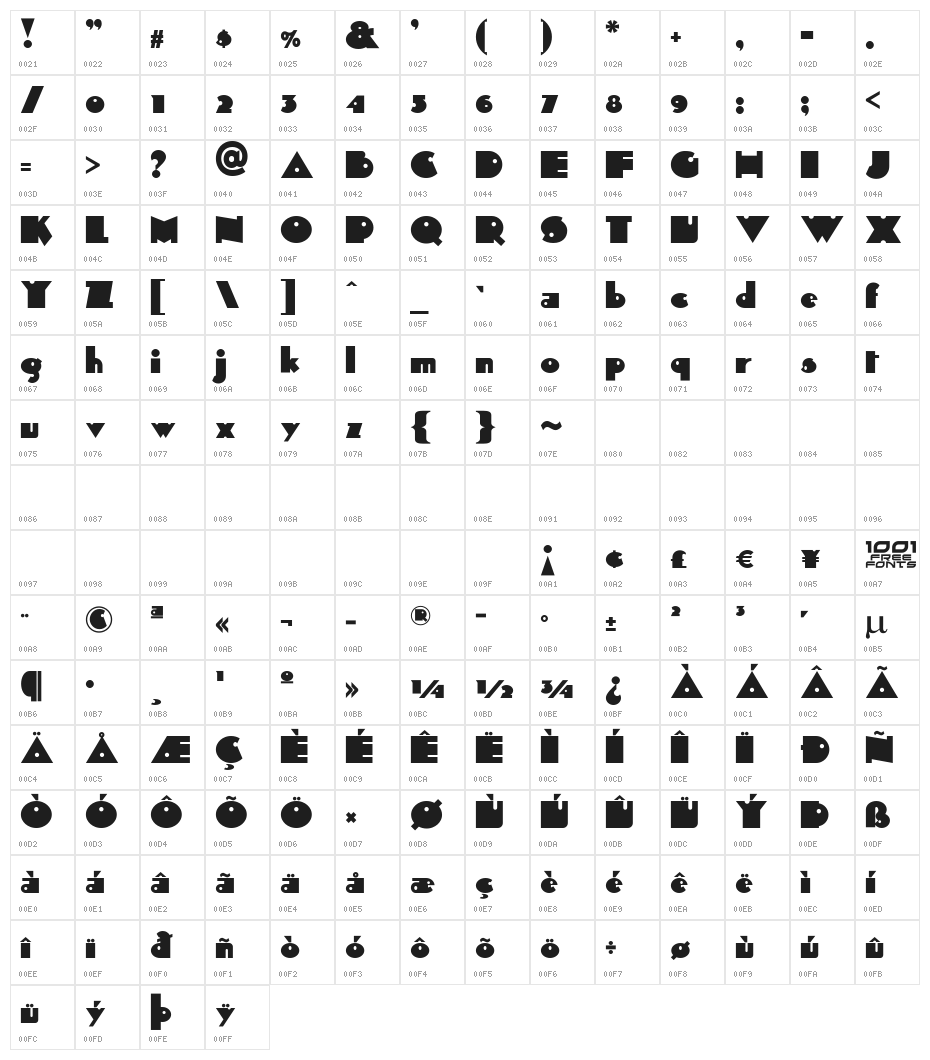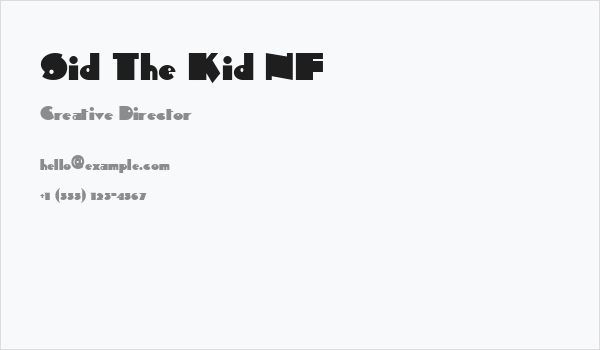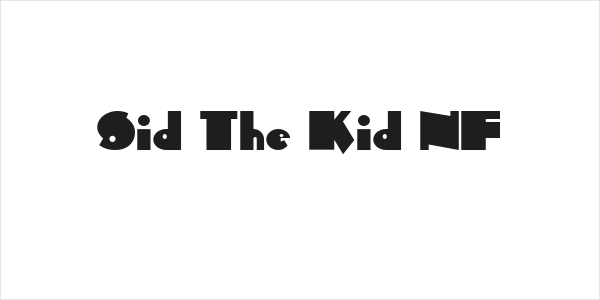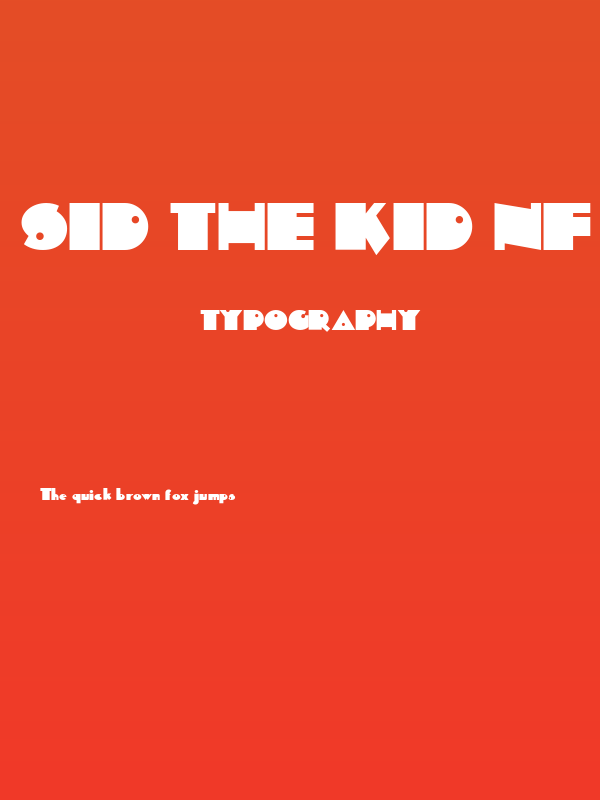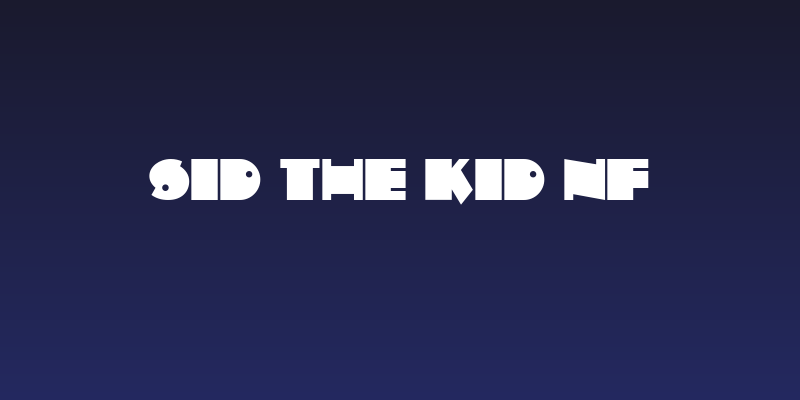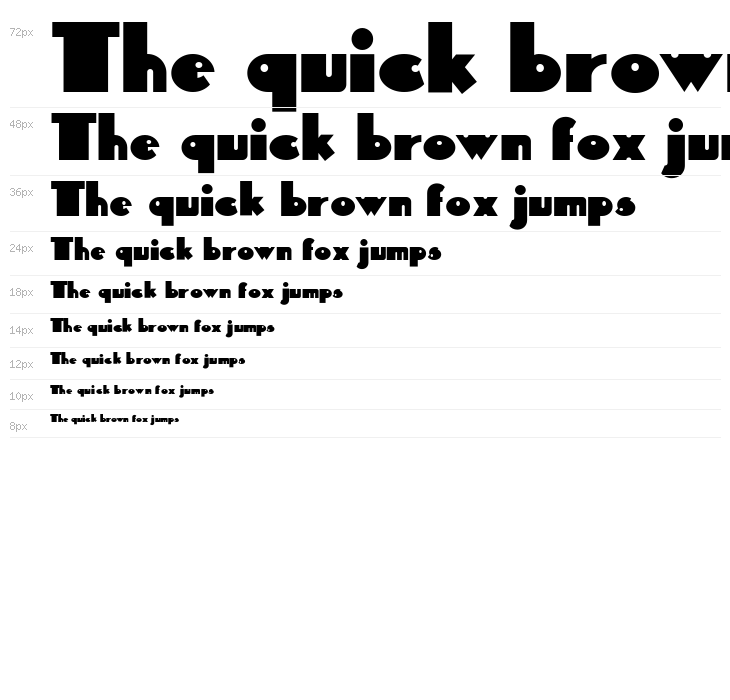
Sid The Kid NF Font
Sid The Kid NF Description
This font features a bold and playful design with geometric shapes and strong lines. The uppercase letters are characterized by their solid, blocky forms, while the lowercase letters maintain a consistent weight and structure. The numbers are equally bold, ensuring visibility and impact. Special characters are designed to match the overall aesthetic, with a focus on symmetry and balance. This font's unique style makes it stand out, offering a modern twist on traditional geometric fonts.
| Proposed Projects | Ideal for children's book covers, playful branding, posters, and any project requiring a bold, eye-catching typeface. |